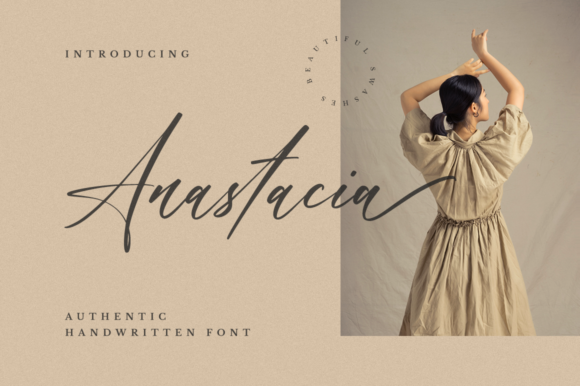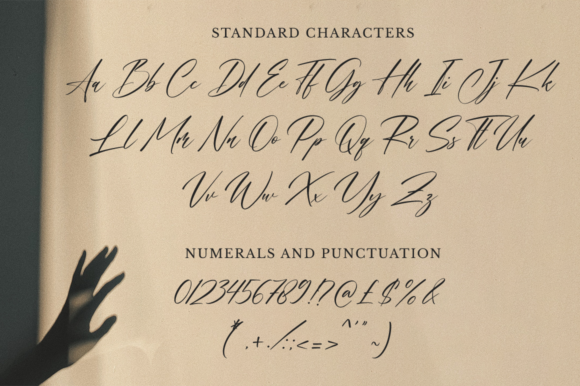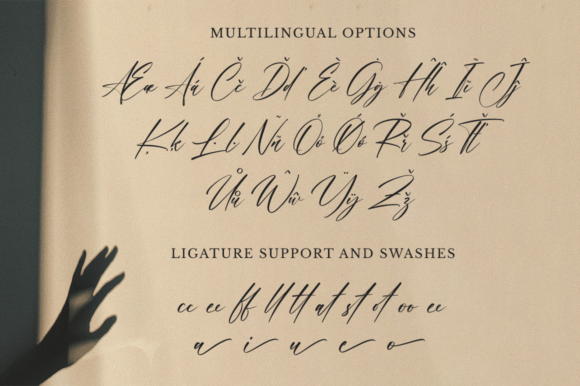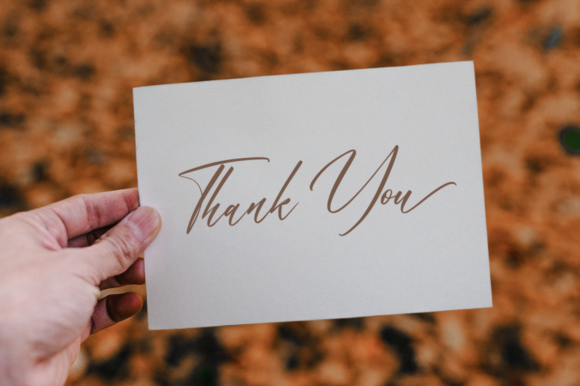
Anastacia Font
About Anastacia Font
Anastacia is a beautiful light handwritten font with a unique feel and a stunning impact. It will add a luxury spark to any design project that you wish to create! Fall in love with its incredibly versatile style and use it to create spectacular designs!